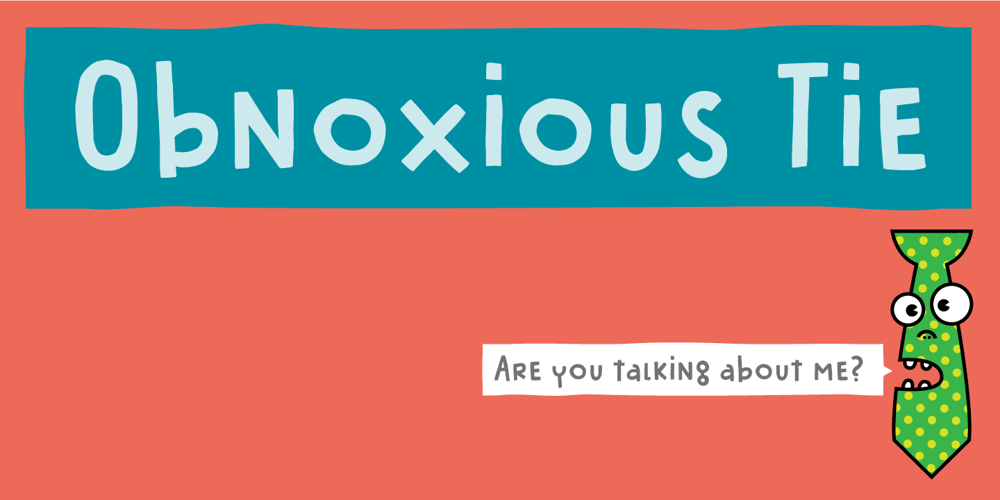
Obnoxious Tie
Obnoxious Tie font
Obnoxious Tie Font Family was designed by Jakob Fischer and published by PizzaDude.dk. Obnoxious Tie contains 2 styles and family package options. That tie you wore in the 1990’ies…the one from the 1980’ies…perhaps even the one from the 1970’ies…could look obnoxious today – or maybe … it’s super fashionable these days! :)This Obnoxious Tie is a mix of upper- and lowercase … well, that goes for the “lowercase” – the uppercase is uppercase, just as usual!